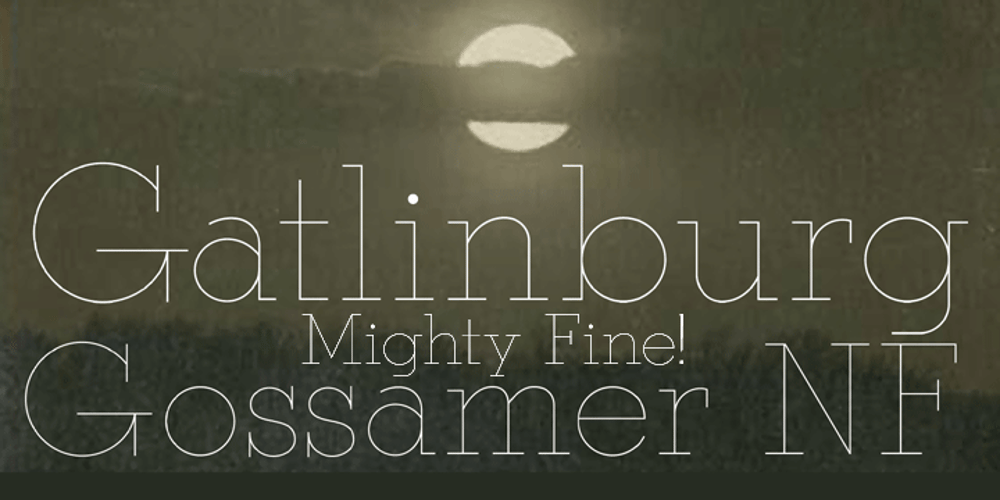
Gatlinburg Gossamer NF Font Family was designed by Nick Curtis and published by Nick’s Fonts. Gatlinburg Gossamer NF contains 1 styles and family package options. The original characters, and now-rarely-seen alternate characters, for Memphis, designed by Emil Rudolf Weiss for American Type Founders in 1930, provided the pattern for this wispy, ultralight typeface. Although intended primarily for headlines, this typeface can also be used for brief blocks of text, if set 18 pt. or larger. Both versions of the font include 1252 Latin, 1250 CE (with localization for Romanian and Moldovan).